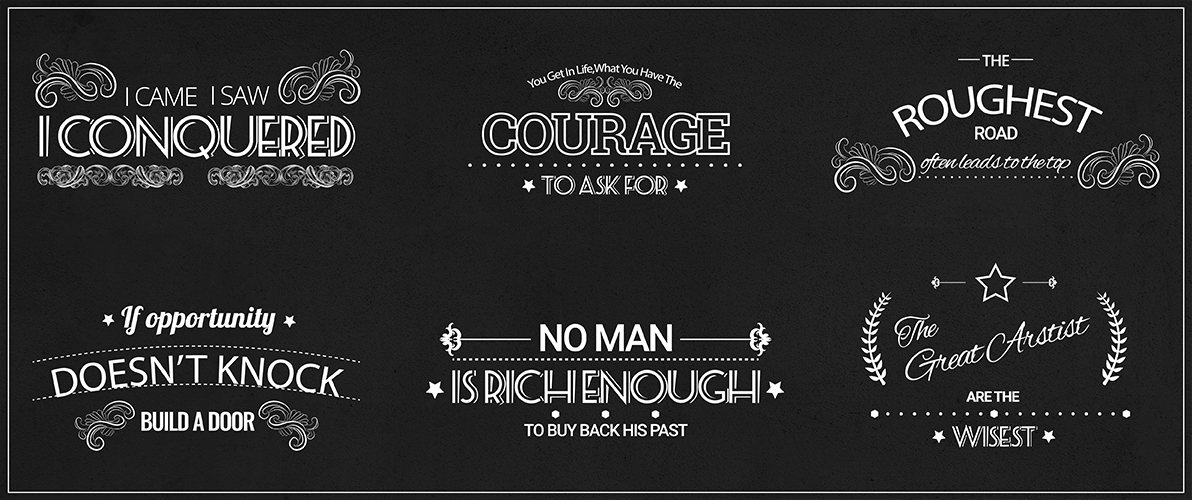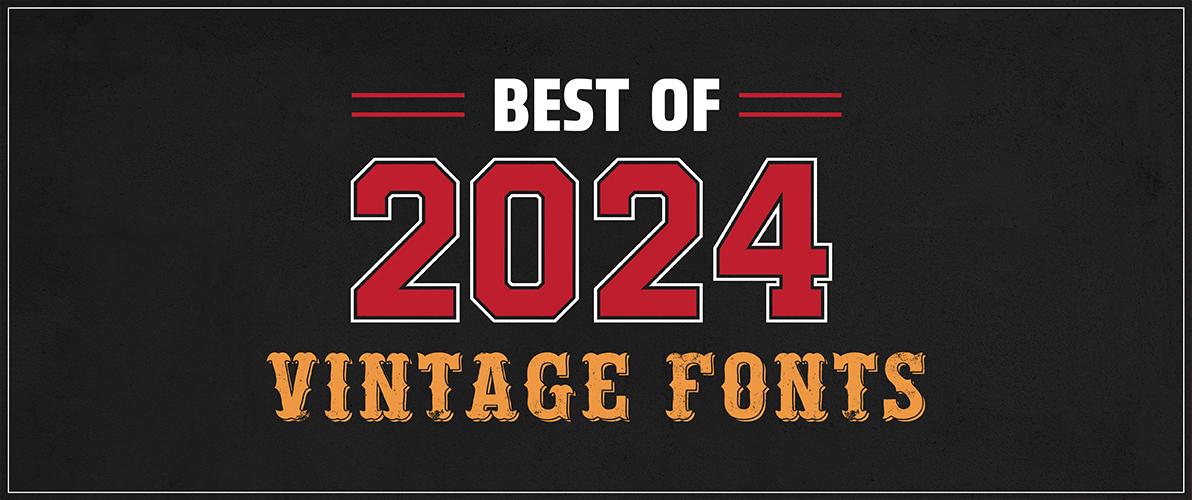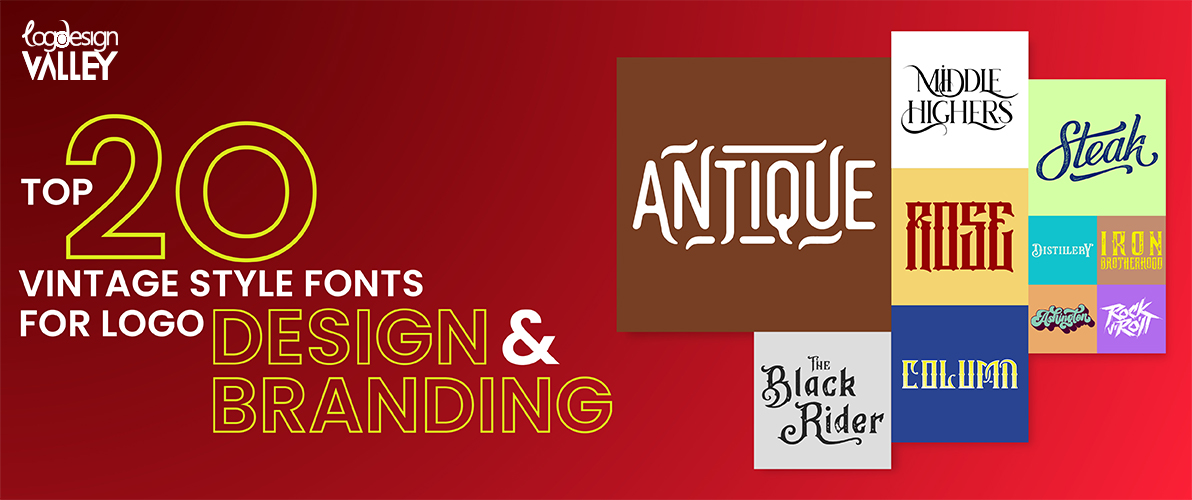
Top 20 Vintage Style Fonts For Logo Design & Branding
Research indicates that consumers are drawn to brands that elicit nostalgia. Well, if you talk about classics then how can we forget that Vintage fonts used to reign supreme logo designs.
Nowadays we see that nostalgia holds a special appeal. The traditional style of vintage logo design creates a feeling of history and genuine identity, making it a valuable asset for logo creation and branding. If you are starting a new business or updating an old one, old timey fonts can give your brand identity a timeless charm.
Why Do People Still Like Vintage Fonts in Branding
The enduring charm of vintage fonts still captivates audiences in the modern day. The antiquated designs elicit nostalgia, bringing to mind easier times. This feeling of recognition generates trust and comfort for possible clients. Moreover, old fonts feature distinct character and charm, helping a brand differentiate itself from others. In a world filled with contemporary, simple designs, adding a touch of vintage style can bring a unique and refreshing element.
Vintage Fonts in Branding
Exploring Different Eras of Vintage Fonts
Vintage font styles have the unique capability to take us back to particular time periods, showcasing their beauty. Classic serif typefaces like Bodoni and Caslon capture the elegance of old advertising strategies. Playful and whimsical handwritten typefaces, like Scriptina, embody the vibrant spirit of the 1950s and 60s.Rockwell’s bold slab serifs evoke memories of retro packaging and signage, while Futura’s geometric font hints at the elegance of Art Deco. By selecting a font from a specific time period, companies can establish a particular vibe and look that connects with their desired demographic.
How to Choose the Attractive Vintage Font
Selecting the appropriate classic font can significantly impact the establishment of a brand image that is both notable and significant. Here are some important factors to think about when selecting the ideal piece of typographic history for your brand.
Match Your Message
First things first, consider the overall vibe you want your brand to communicate. Does your company exude luxury and tradition? Then a classic serif font like Bodoni or Caslon might be ideal. Aiming for a more playful and lighthearted feel? A script font like Scriptina could be the way to go. Remember, the font should complement your brand’s personality and resonate with your target audience.
Know Your Audience
Consider the target audience you are aiming to connect with. Will they feel a stronger connection to a font that is familiar and nostalgic? Understanding what your audience likes will assist in selecting a font that conveys the appropriate feelings.
Consider the Era
Vintage font typography allows for a delightful trip back in time. Every period showcases distinctive design features. An example is how geometric fonts such as Futura embody the elegance of Art Deco, while bold slab serifs like Rockwell elicit nostalgia for retro packaging. Choosing a typeface from a certain era helps you establish a specific visual style that reflects your brand narrative.
Experiment and Explore
With a vast array of best vintage fonts available, there is always a perfect match for your brand; you just need to search for it. Experiment with different options, keeping your brand message and target audience in mind. There are many resources online showcasing vintage script font, so take some time to browse and discover hidden gems.
Readability Matters
While adding a touch of personality, vintage fonts shouldn’t compromise clarity. Make sure the chosen font is easy to read at various sizes, especially on your logo and marketing materials. A beautiful font loses its impact if viewers struggle to decipher the message.
Following these recommendations and focusing on your brand’s identity, you can select a retro font that not only looks visually pleasing but also effectively communicates your brand’s unique personality and message. Remember, selecting the right classic typeface is an essential aspect of your brand’s visual identity, influencing your audience significantly.
Vintage Fonts vs Retro Font: The Difference
Feature   Vintage Fonts   Retro Fonts
Inspiration Specific historical design styles Inspired by past styles, with a modern twist
Feel Truly old-fashioned, nostalgic Modern take on vintage styles, feels more current
Examples Bodoni, Caslon, Scriptina Futura, Bebas Neue, Akronim
Use Case Brands seeking a timeless, heritage look Brands wanting a modern feel with a touch of vintage charm
Top 20 Different Types of Vintage Fonts for Your Logo
There are many things involved in designing and building a great logo, like color, fonts, layout, and technicalities. You also make sure it looks good on different sizes. Therefore; once you pick the best vintage fonts it is advised to consult with professional logo designers or search online for Logo Design Best Practices to learn more!
Can you help me create a logo using a vintage font?